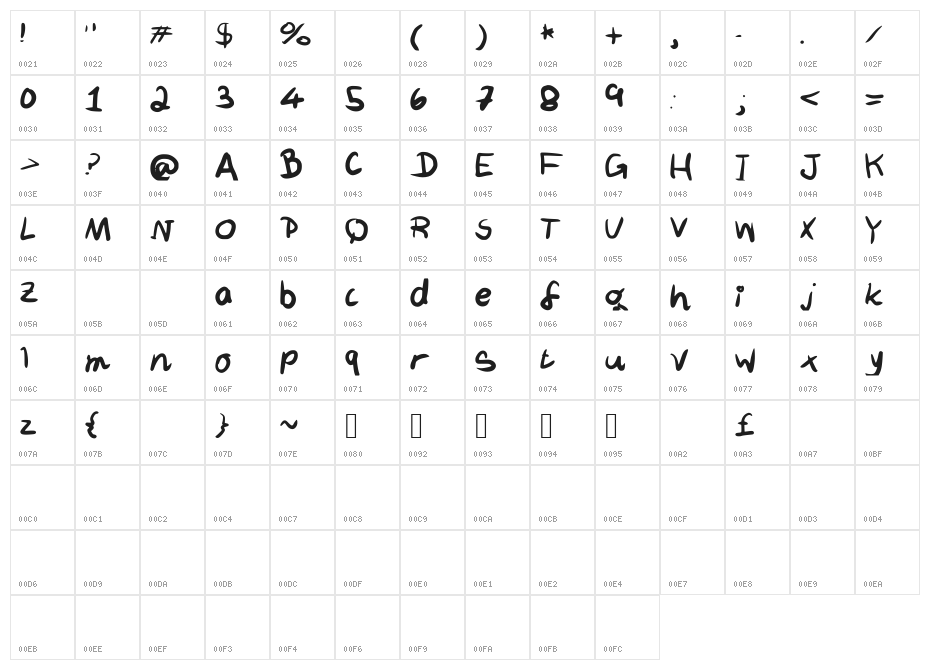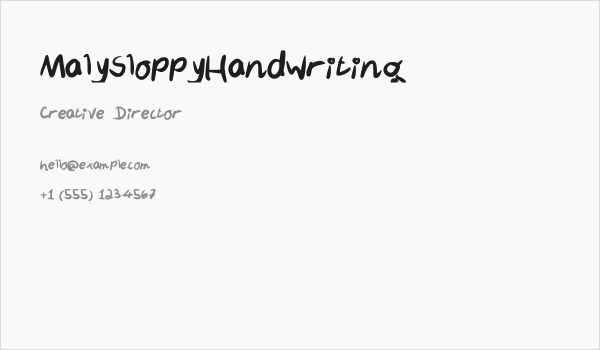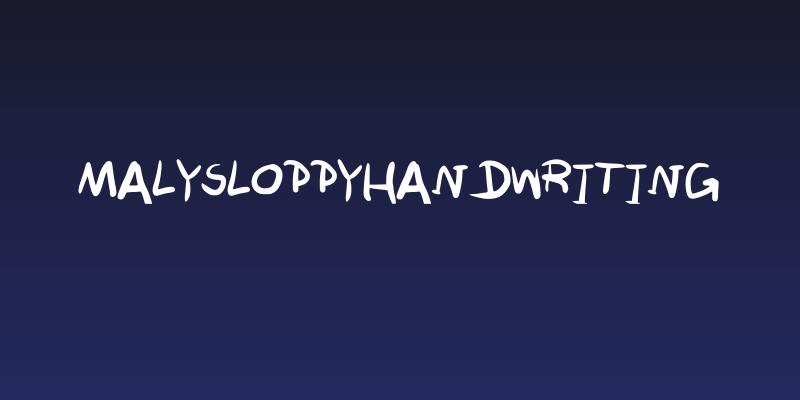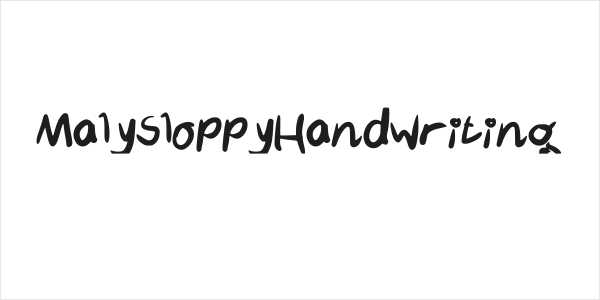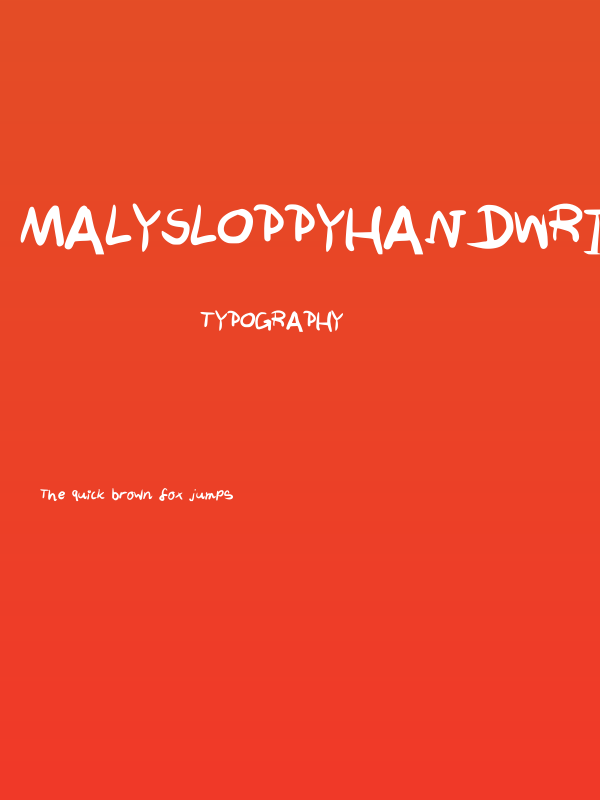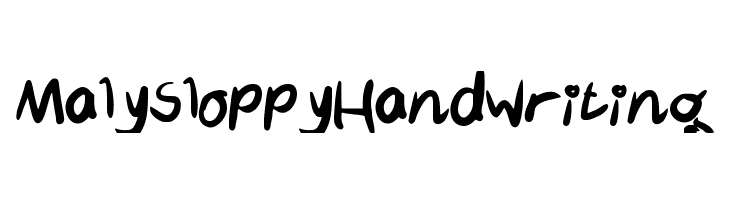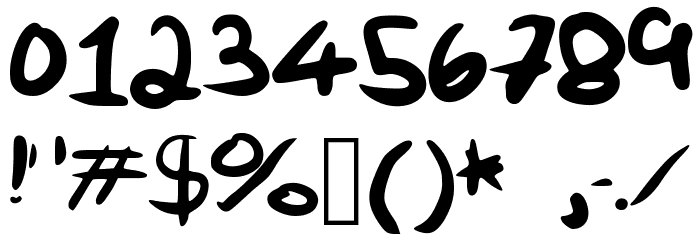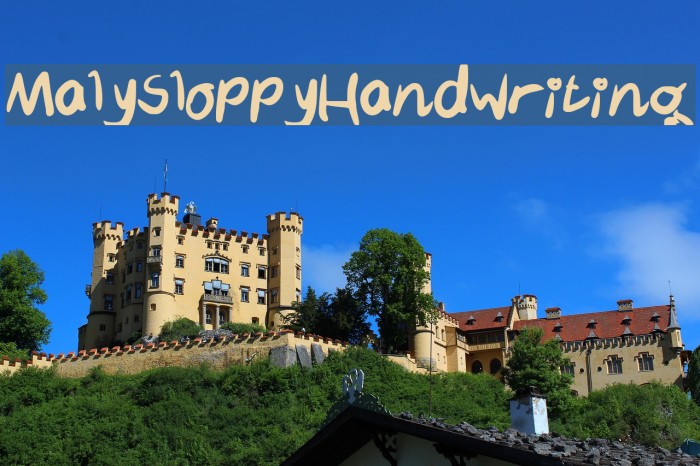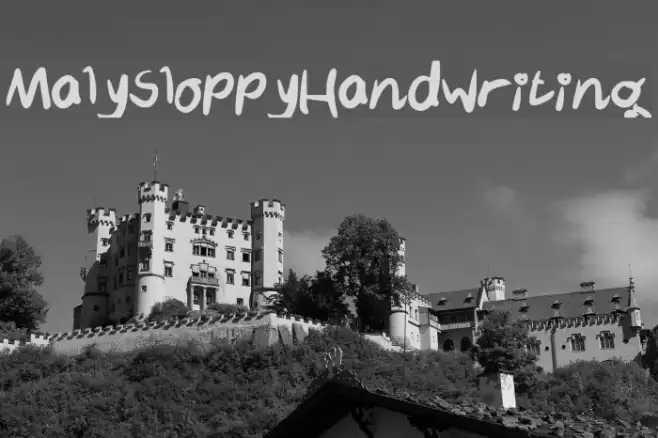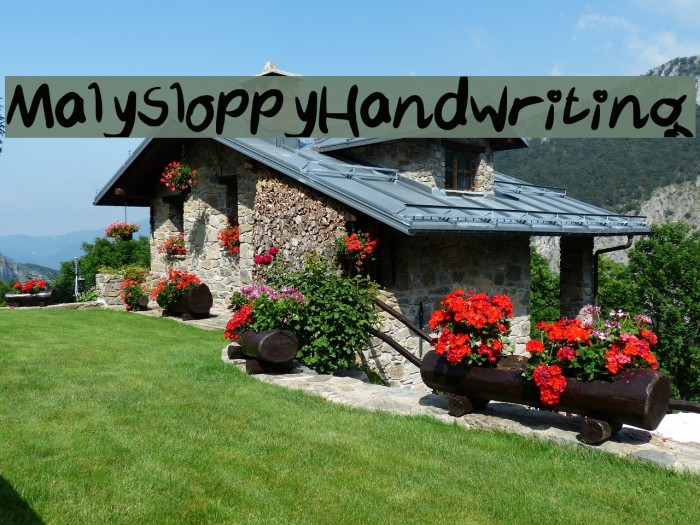
MalySloppyHandwriting Font
MalySloppyHandwriting Description
This font exhibits a playful and casual handwritten style, characterized by its uneven strokes and slightly irregular letterforms. The uppercase and lowercase letters maintain a consistent flow, giving it an informal and approachable appearance. The numbers and special characters follow the same style, adding to the cohesive look. The overall design is reminiscent of personal handwriting, making it ideal for projects that require a touch of personality and warmth. The strokes are bold and confident, yet maintain a sense of spontaneity and creativity.
| Use Case | Logos, Headlines, Informal Text |
| Proposed Projects | Ideal for greeting cards, personal notes, informal invitations, and creative projects that require a personal touch. |